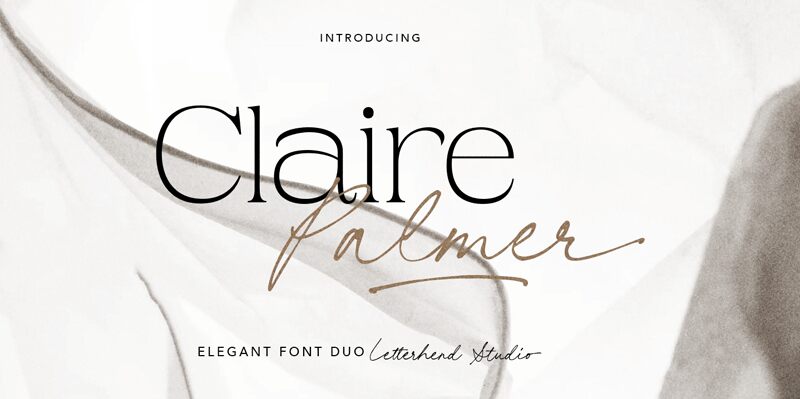
Claire Palmer Script, designed by the talented team at Letterhend Studio, is a captivating handwritten font that exudes a delicate and graceful charm. With its light weight and fluid strokes, this font effortlessly captures the essence of a refined, elegant script. The natural variations and organic flow of the letters lend a sense of authenticity and personal touch, inviting the viewer to engage with the text on a deeper level. Claire Palmer Script's alluring aesthetic seamlessly blends traditional calligraphic influences with a modern sensibility, making it a versatile choice for a wide array of design applications.
Versatile and adaptable, Claire Palmer Script can elevate a variety of projects, from high-end branding and editorial designs to whimsical stationery and invitations. Its graceful and legible forms make it an excellent option for wedding suites, event materials, and personal correspondence, where the font's refined elegance can truly shine. Additionally, Claire Palmer Script's versatility extends to product packaging, social media content, and even logo design, where its unique character can lend a touch of sophistication and personality to the final outcome.